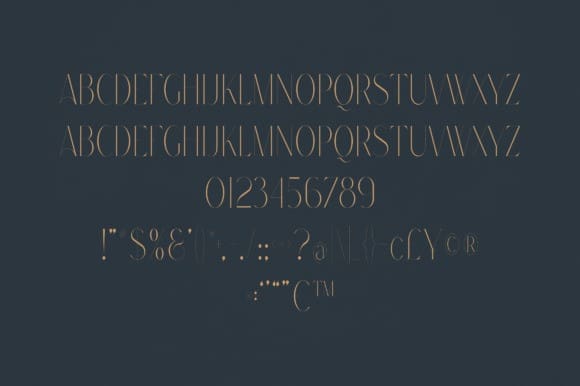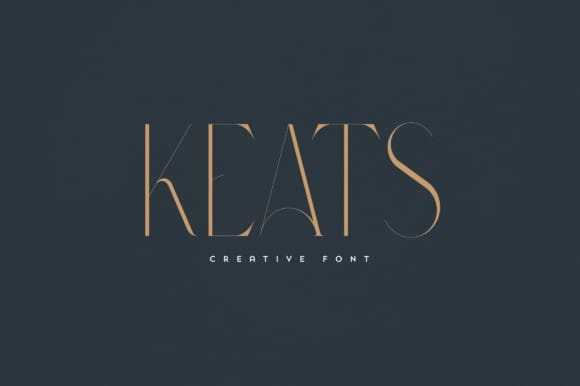
Keats Font
Keats Font is an elegant and versatile font that will make your typography truly unique! It will enchant every logo, branding, headline, or plain text!